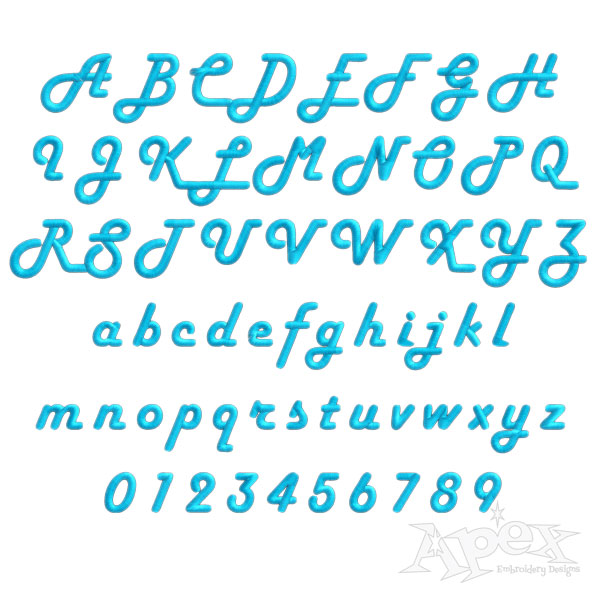
Nifty Fifties Embroidery Font
Nifty Fifties Embroidery Fonts. All satin stitch fonts. 6 inch is a long satin stitch a double step satin. Size: 2" 4" and 6" sets